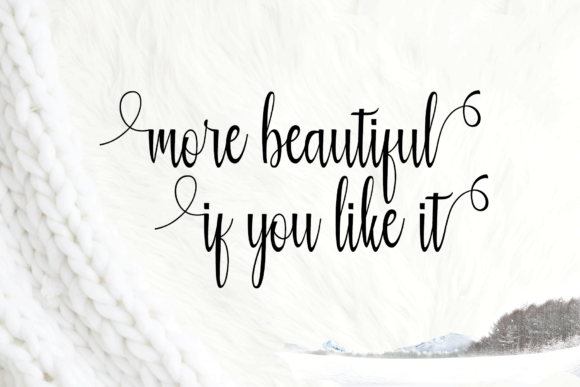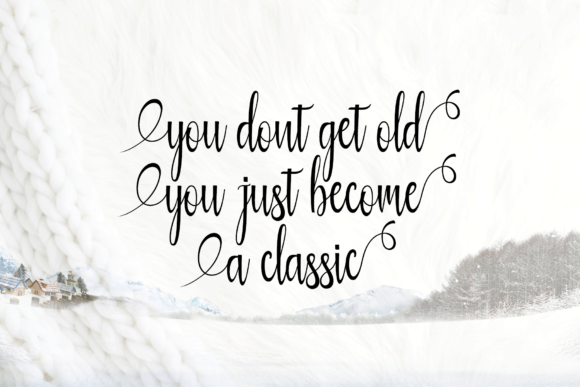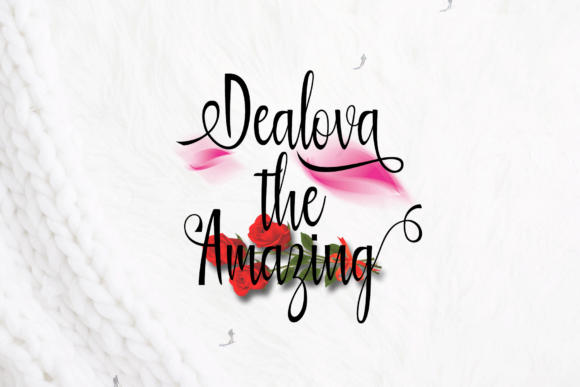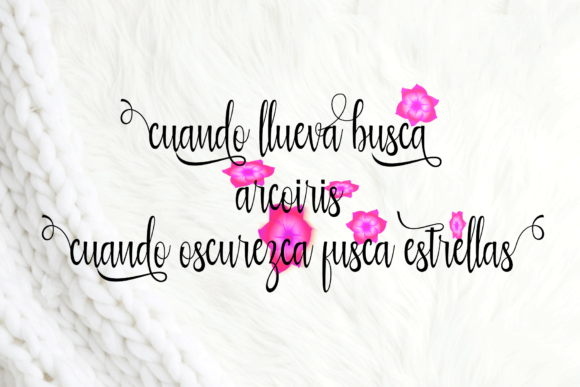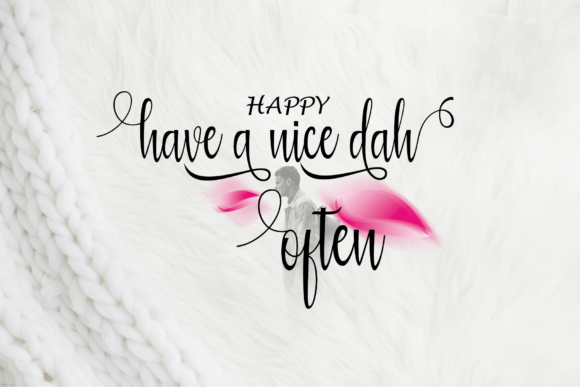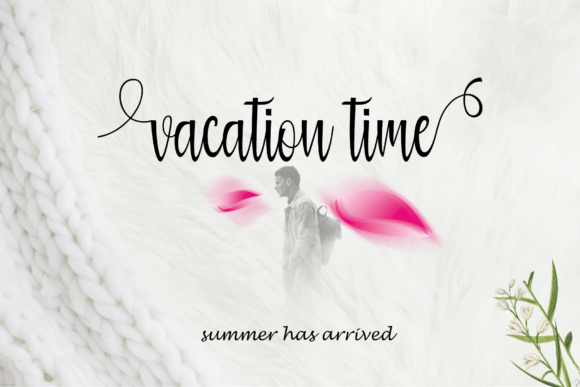
Introduction to Jordan River Font
Have you ever found yourself in a creative rut, staring blankly at a blank page, searching for the perfect font to bring your project to life? I know I have. It’s like waiting for the perfect brushstroke to emerge from the depths of your imagination. One moment, it’s there; the next, it’s gone. But what if I told you there’s a font that can elevate your creative project to new heights? Enter the Jordan River Font, a game-changing design resource that’s about to revolutionize the way you approach typography.
This stunning font pays homage to modern calligraphy in a very unexpected and bold way. With its unique, handwritten style and transparent background, it’s the perfect addition to any high-quality design project. And the best part? It’s available for free download, making it an invaluable resource for designers of all levels.
Key Features of Jordan River Font
- High-quality, unique font design with a transparent background, perfect for creative projects and designs.
- Includes multiple font styles, each with its own distinct characteristics, to suit various design needs.
- Features a high-resolution design, ensuring crisp and clear text display even at larger font sizes.
- Supports a wide range of languages, making it a versatile font for international designs and projects.
Honest Review: Jordan River Font
I recently had the chance to work with the Jordan River Font, and I must say it’s been a game-changer for my design projects. The font is a beautiful, high-quality addition to any creative project.
What works well: ✨ The font is incredibly versatile and works well in a variety of contexts. From headers to body text, the Jordan River Font is sure to impress. Additionally, the transparent background feature is a huge bonus, making it easy to overlay text on images and other design elements.
Limitations: ⚠️ While the font is incredibly high-quality, it does lack a bit of character variation. This may be a drawback for designers looking for a font with a lot of personality.
Overall, I’m thoroughly impressed with the Jordan River Font. It’s a fantastic addition to any design resource, and I highly recommend it to designers looking for a high-quality font.
- High-quality font design
To get the most out of the Jordan River Font, experiment with different font sizes, colors, and styles to create unique and eye-catching designs. You can also pair the font with other design elements, such as images or shapes, to add visual interest to your project.
The Jordan River Font is ideal for use in creative projects, such as graphic design, web design, and digital art. It’s also a great choice for personal projects, such as social media graphics, posters, and flyers.